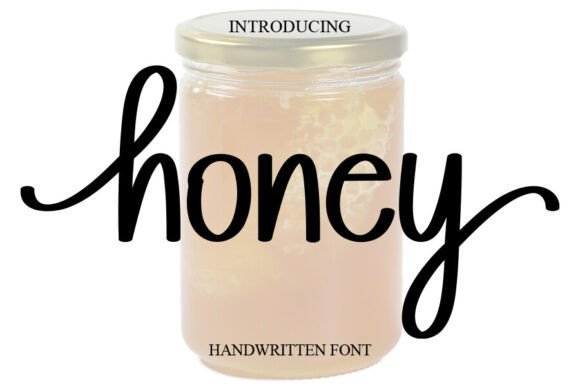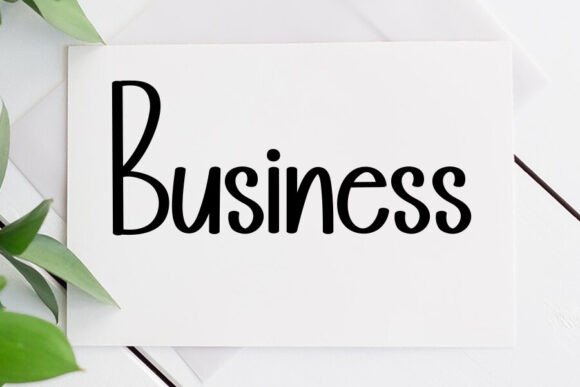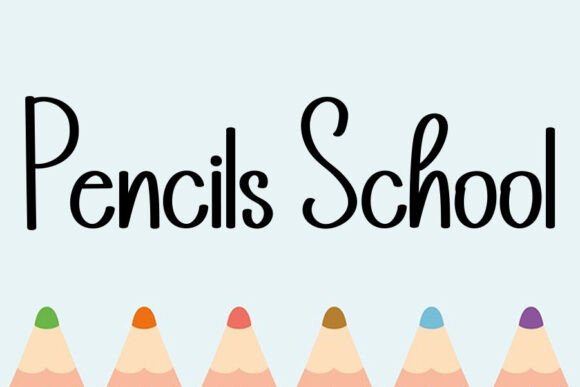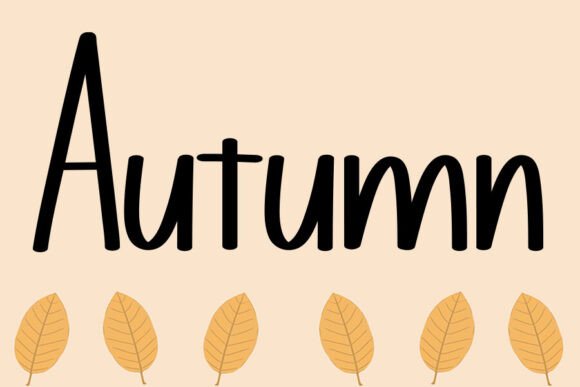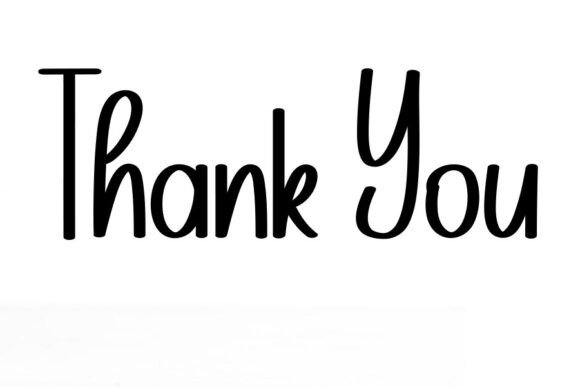
Discover the Sweetness of Honey Font
Do you ever get that spark of creativity when you stumble upon the perfect font? It’s like the whole design universe aligns, and you know exactly what you need to bring your vision to life. For me, that moment happened when I discovered Honey Font – a sweet and cursive handwritten font that adds a touch of romance to any project.
Honey Font is a gentle and elegant script that’s perfect for designers looking to add a whimsical feel to their designs. Whether you’re creating a wedding invitation, a fashion lookbook, or a marketing promotion, this font will bring a sense of joy and sophistication to your work. Its versatility makes it an invaluable tool for any designer looking to elevate their designs and stand out from the crowd.
Honey Font Key Features
- Font Style: Honey Font is a modern, elegant script font, ideal for creating a warm and inviting atmosphere in designs.
- Unique Characteristics: Honey Font features a unique blend of soft, flowing lines and subtle texture, giving it a distinctive and eye-catching appearance.
Honey Font Review
Overall, I’m impressed with the Honey Font, a beautiful script font designed for both personal and professional use. ✨ Its elegant, cursive design makes it perfect for adding a touch of sophistication to any project. I particularly love its versatility – it’s suitable for everything from branding and advertising to wedding invitations and social media graphics.
The font’s unique characteristics, such as its fluid connections and dynamic flair, give it a high-end feel. ✨ I also appreciate the range of font weights available, which allows designers to customize their designs to suit their specific needs.
Limits and Considerations
- ⚠️ Limited language support: While Honey Font supports a wide range of languages, it’s not as extensive as some other fonts on the market. This may be a limitation for designers working on multilingual projects.
- ⚠️ Not ideal for small text: Due to its script nature, Honey Font can be difficult to read in small sizes. Designers may need to adjust font sizes or use it in conjunction with a more readable font for better results.
Overall, I’d recommend Honey Font to designers looking for a high-quality script font. While it has some limitations, its unique design and versatility make it a valuable addition to any font library.
Tips for Getting the Most Out of Honey Font
1. Use the Honey Font to create a warm and inviting atmosphere in your designs.
2. Pair the Honey Font with other fonts to create a unique and interesting visual effect.
3. Experiment with different font sizes and colors to achieve the desired look.
2. Food and beverage branding.
3. Home decor and furniture design.
Alternatives to “Honey Font” for Designers
Lato is a clean, modern sans-serif font that is highly legible and suitable for body text. It is a great alternative to Honey Font for designers who want a font that is both elegant and easy to read. Lato is available in multiple weights and is a popular choice for digital design projects.
Comparison to Honey Font: Lato has a more geometric and modern feel compared to Honey Font’s more rounded and handwritten appearance. While both fonts are highly legible, Lato is more versatile and can be used for a wide range of design projects.
Montserrat is a geometric sans-serif font that is highly versatile and suitable for both body text and display text. It is a great alternative to Honey Font for designers who want a font that is both modern and sophisticated. Montserrat is available in multiple weights and is a popular choice for branding and advertising projects.